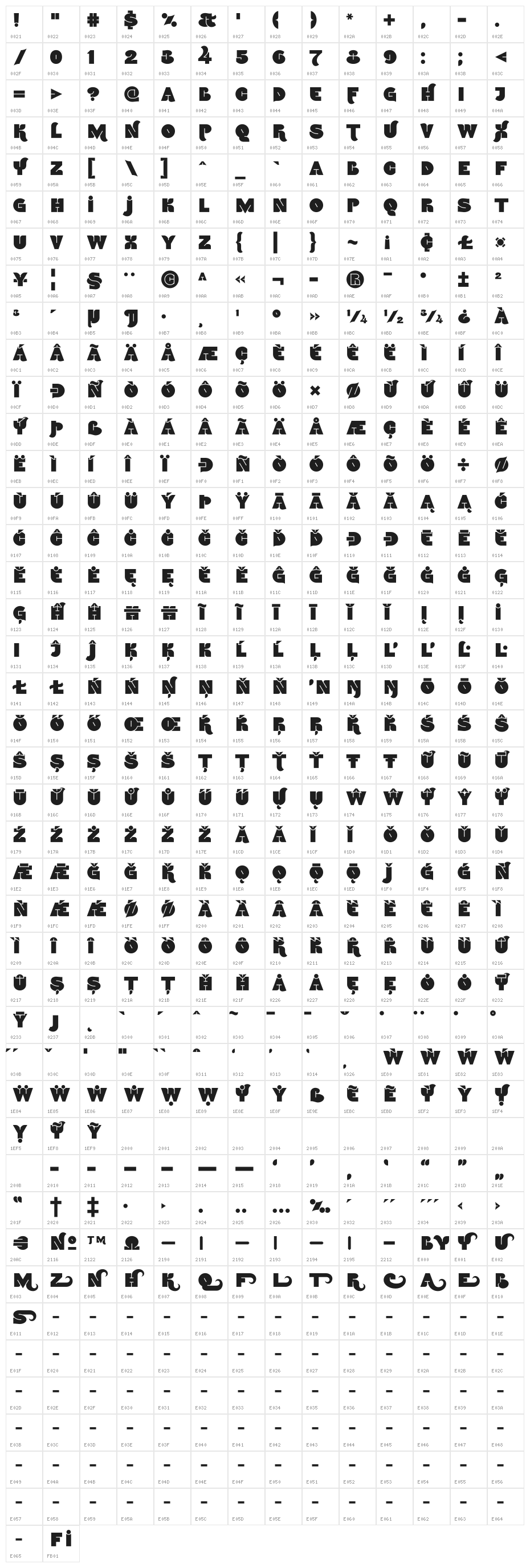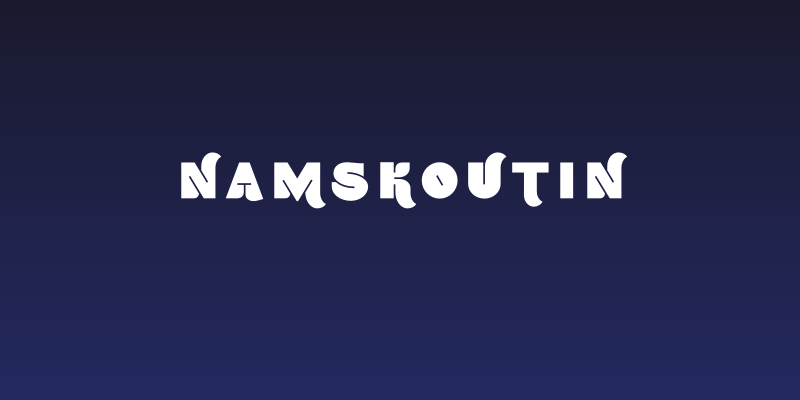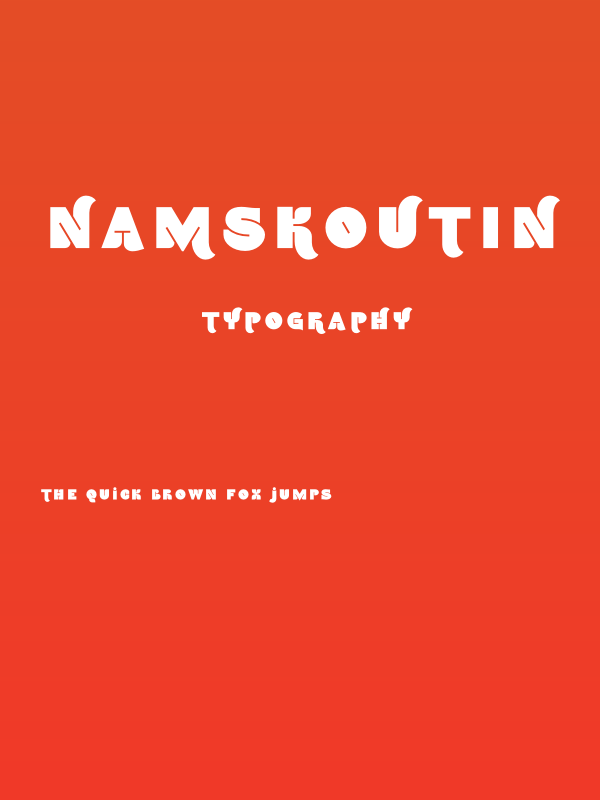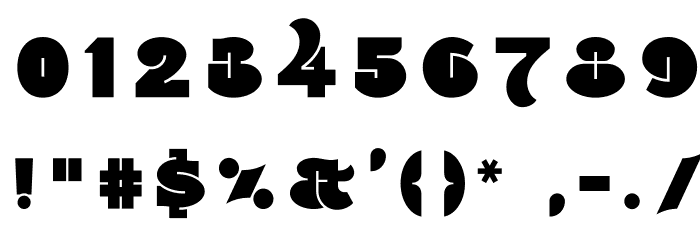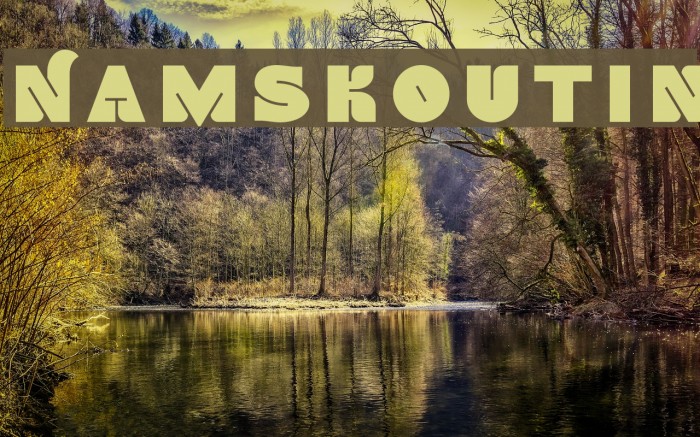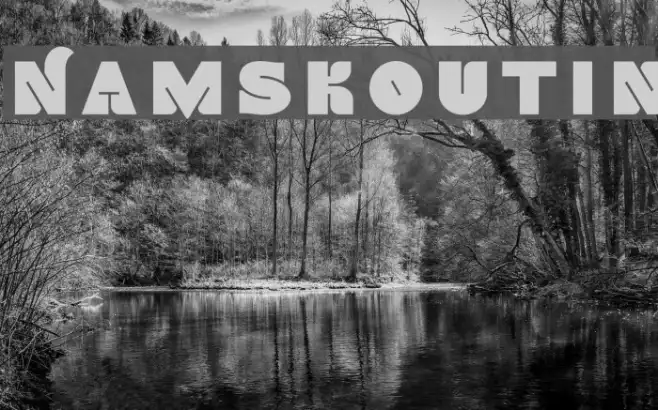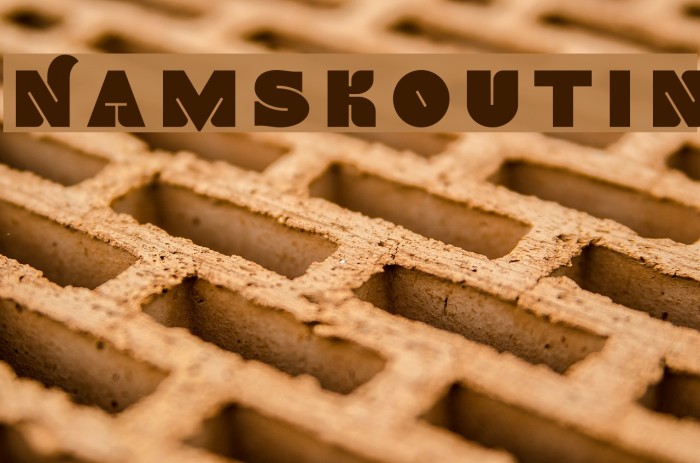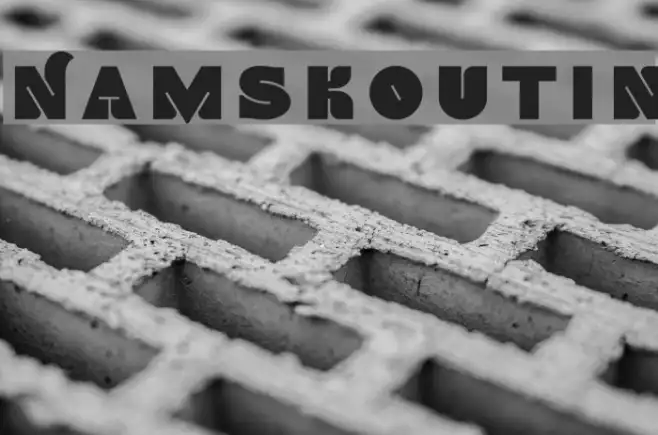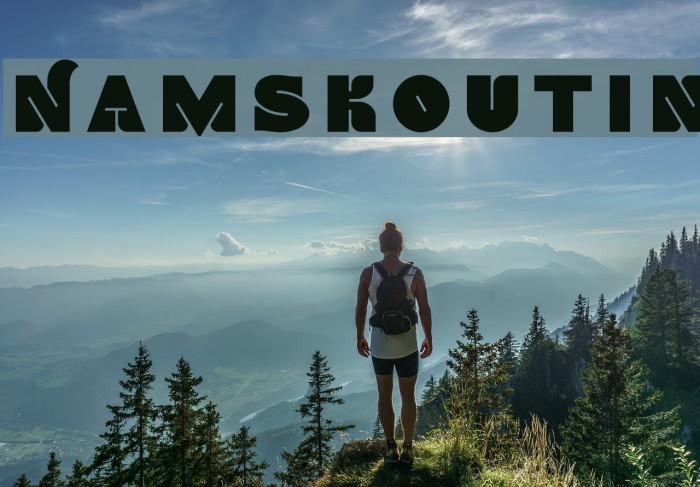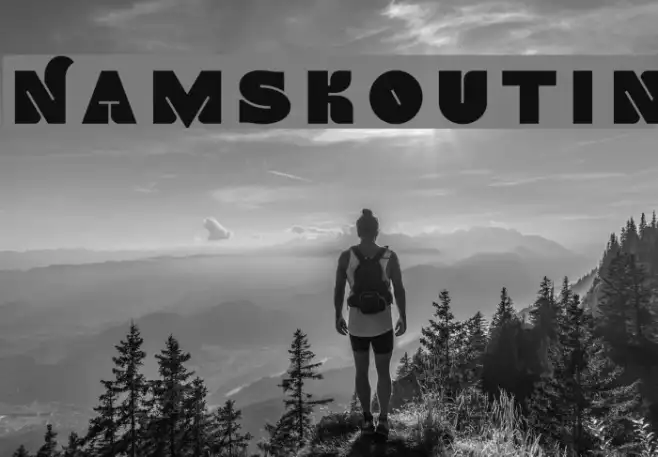
NamskoutIn Font
NamskoutIn Description
This font features a bold and striking design with a modern flair. Each character is crafted with unique geometric shapes, creating a sense of movement and energy. The uppercase letters are particularly distinctive, with sharp angles and bold strokes that command attention. The lowercase letters maintain this boldness while offering a slightly more rounded appearance. Numbers and special characters are equally bold, ensuring consistency across all elements. This font's high contrast and thick strokes make it ideal for impactful designs.
| Proposed Projects | Ideal for posters, logos, branding, and headlines where a strong visual impact is desired. |